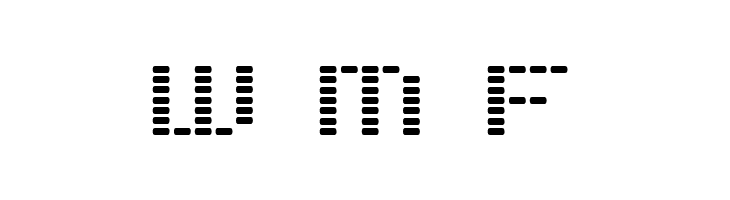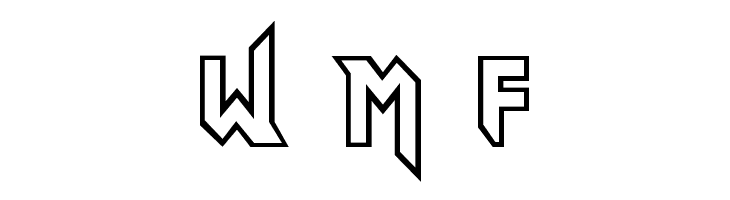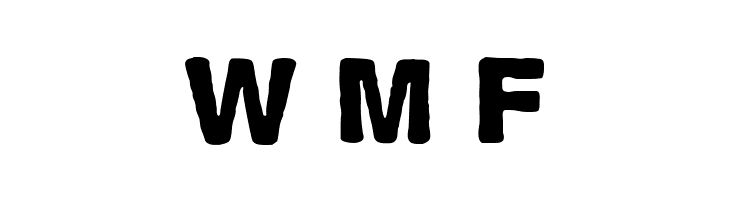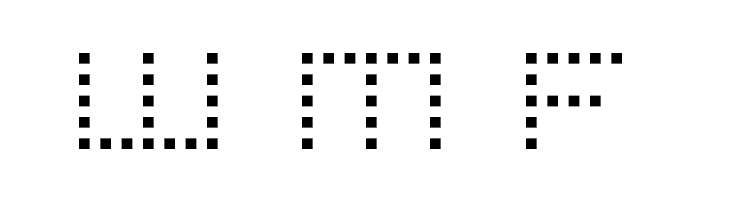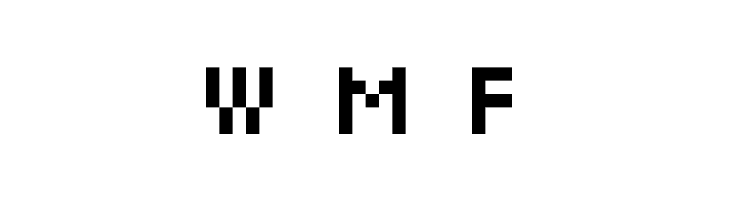
A geometric, maritime-inspired design with bold, clear shapes.
A modern, dotted font with a geometric and futuristic style.
A modern, geometric font with elongated, narrow letterforms and a sleek design.
A futuristic, alien-like script with smooth curves and sharp angles, perfect for sci-fi themes.
A bold, geometric font with a pixelated, digital appearance.
A modern, geometric font with thin lines and a minimalist design.
A monospaced font with uniform character width and a modern classic style.
A bold, monospaced slab serif font with medium contrast and uniform character width.
A monospaced slab serif font with a classic typewriter style.
A bold, decorative font inspired by street signs, featuring uppercase letters in rectangular frames.
A modern, rounded font with consistent line thickness and playful style.
A sleek, modern, condensed italic font with a futuristic and technical design.
A modern, geometric, and condensed font with rounded edges and uniform stroke thickness.
A modern, geometric, and condensed font with low contrast and rounded edges.
A narrow, modern font with tight spacing and medium contrast.
A bold, geometric font with a digital, pixelated style.
A bold, robust font with thick strokes and clear legibility.
A bold, modern font with a geometric and slightly condensed design.
A geometric, block-style font with a modern, digital aesthetic.
A geometric, blocky font with a futuristic and digital appearance.
A modern, dashed font with a minimalist and innovative style.
A bold, monospaced font with a modern, geometric style.
A modern, monospaced font with clean lines and uniform spacing.